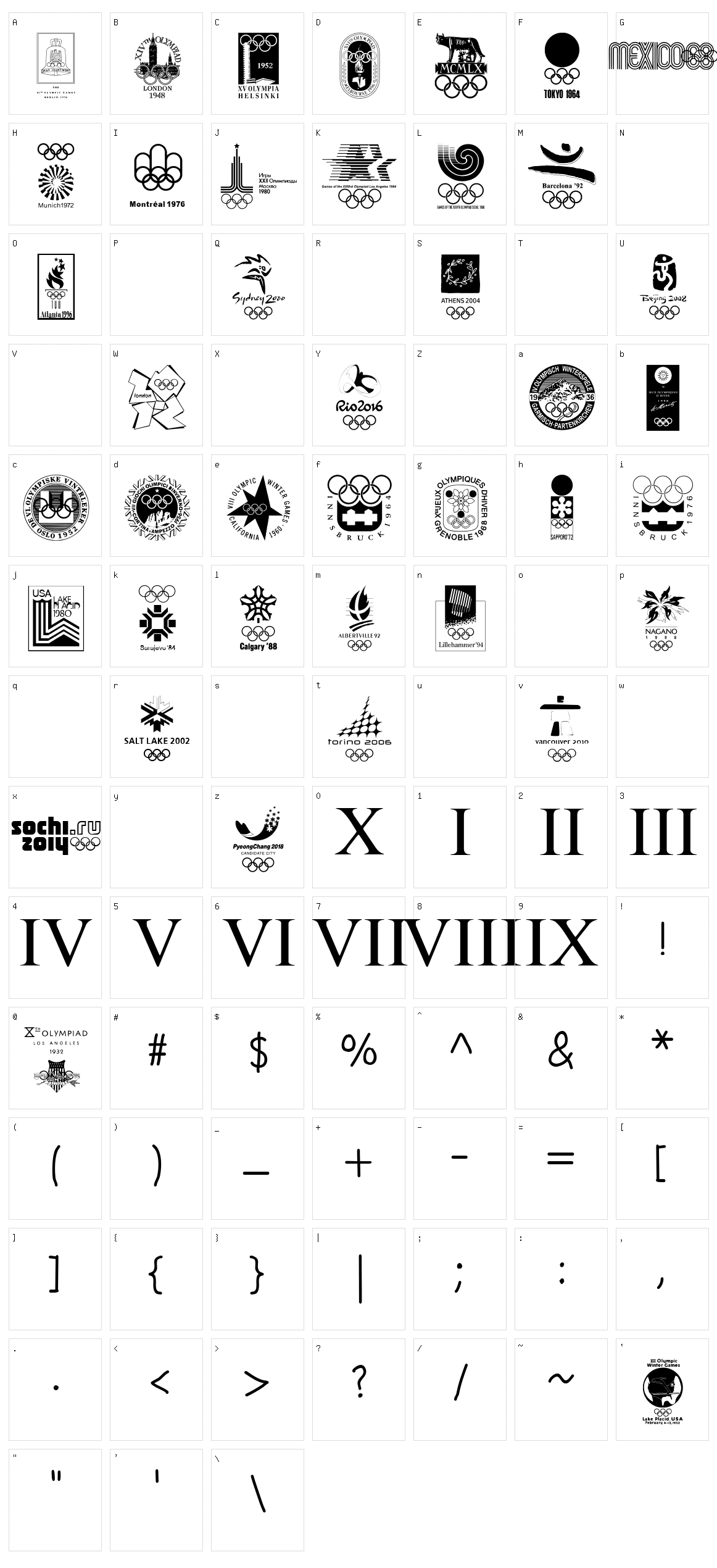
Olympiad XXX
In the UK we will celebrate the 30th Summer Olympic Games this font has
been created to help celebrate both the Summer and Winter Games from
1932-2012 and beyond, there were no great logos before then so from
1896 Summer and 1932 Winter, in 1992 the Games split to run on separate
four-year cycles in alternating even-numbered years, also in 1916, 1940
and 1944 the War prevented the four yearly rota.